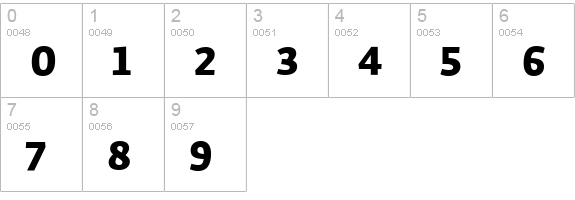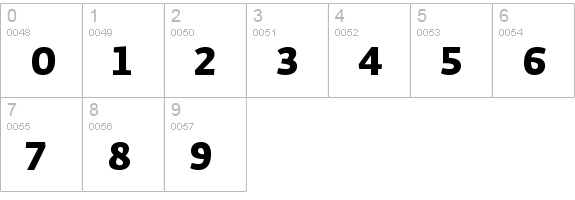
Auto 2 Black LF is a maximum-weight, dramatic variant in the Auto typeface family \xE2\x80\x94 well suited to maximum-impact headlines, posters, and packaging.
Auto 2 Black LF font is a sleek and modern typeface that exudes sophistication and style. With its bold and dynamic letterforms, this font is perfect for creating eye-catching designs that make a statement. The Auto 2 Black LF font is designed for maximum impact and readability, making it ideal for a wide range of design projects. Best of all, this font is available for free download at FontsMarket.com. Whether you're working on a branding project, poster design, or any other creative endeavor, the Auto 2 Black LF font is sure to elevate your work to the next level. Don't miss out on this opportunity to add a touch of elegance to your designs with this stunning font. Download it now and unleash your creativity!